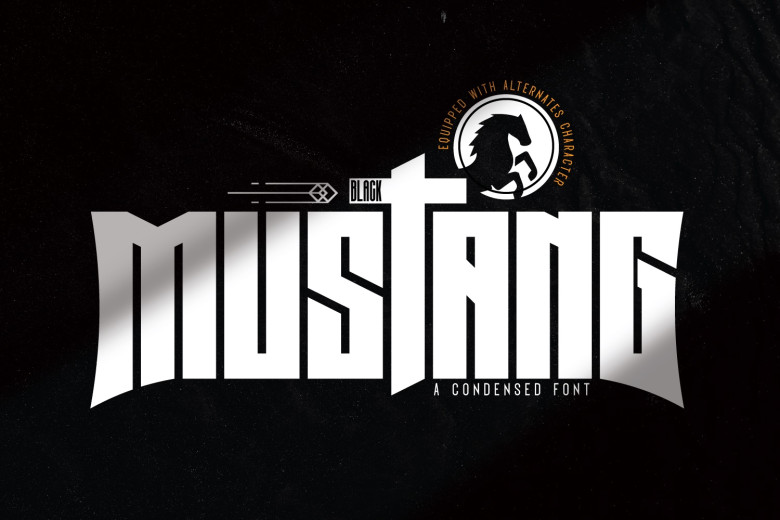
Black Mustang Font
Black Mustang is a condensed display font with a modern appearance, perfect for creating titles or selecting from its Glyph Palette of more unique characters for an unrestrained appearance.
Beautiful when used on thank-you cards and greeting cards, as well as quotes or business cards, logos or any design needing an individual look.
Black Mustang Display Font